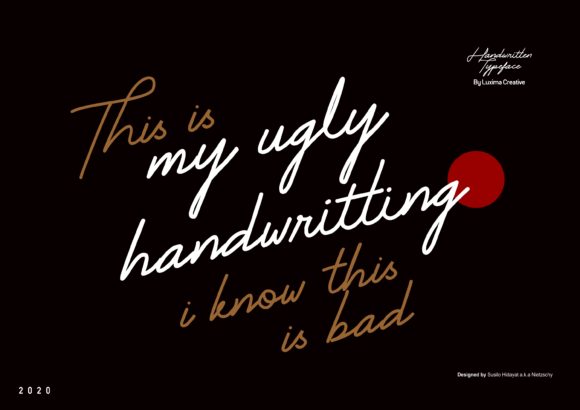
Unleash the beauty of your creative expression with My Ugly Handwritting Font, an exquisite script font crafted for those who dare to stand out. Immerse yourself in the world of visual elegance, where every word dances upon the screen, leaving a trail of intrigue and inspiration.
With its unique handwritten style, My Ugly Handwritting Font adds a touch of personal charm to any project, turning your words into works of art. Whether you're a passionate artist, an aspiring influencer, or a creative entrepreneur, this remarkable font will elevate your designs to new heights.
Adorn your Instagram posts with captivating captions that flow effortlessly, captivating your audience with a touch of handwritten beauty. Unleash your inner calligrapher and create personalized invitations, greeting cards, and DIY projects that radiate warmth and charm. Embrace the art of storytelling with My Ugly Handwritting Font, transforming your texts into heartfelt narratives that resonate with your readers.
Discover the boundless possibilities of My Ugly Handwritting Font, a masterpiece created by Luxima Creative. Each carefully crafted letter dances upon the page, carrying a message of individuality and passion. Whether you're designing logos, crafting eye-catching social media posts, or personalizing your digital creations, this font will transform your ideas into visual symphonies.
Join the league of creatives who have embraced the beauty of My Ugly Handwritting Font. Experience the joy of turning ordinary words into extraordinary expressions. Let your imagination run wild as you create designs that captivate, inspire, and leave an everlasting impression.